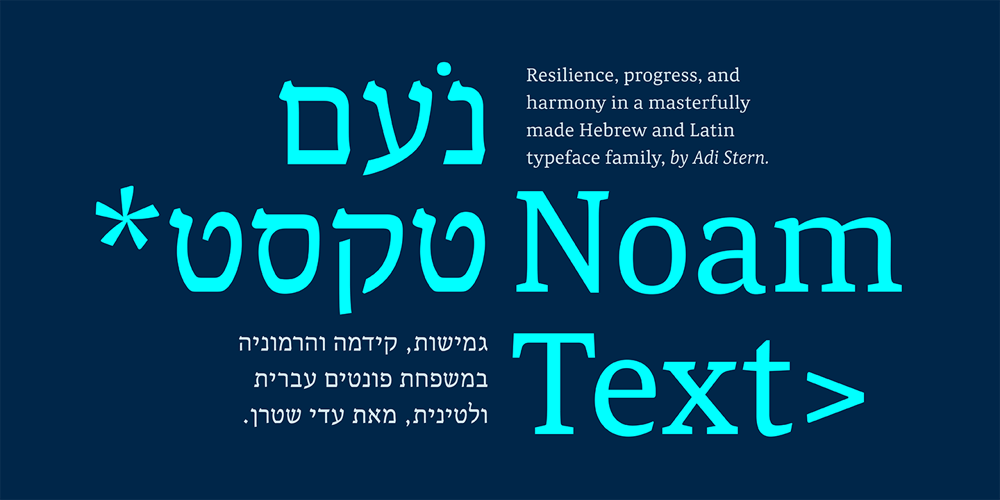
Noam Text Font Family was designed by Adi Stern and published by TypeTogether. Noam Text contains 3 styles and family package options. Adi Stern’s Noam Text shows that typographic progress is often in the small things — in the perfecting of familiar traditions and in staying loyal to the spirit of what came before. It can’t really be called progress unless it honours its history. In this way, TypeTogether is happy to introduce Noam Text: A Hebrew and Latin serif font that builds on its heritage with the twin tools of honour and progress. Since 1908, the Frank-Rühl fonts have dominated the Hebrew book and newspaper market. Noam Text’s design goal was to create a coherent family with both Latin and Hebrew serif text typefaces, each authentic to its own script, and which would serve as an alternative to last century’s predecessor. In short order, users will recognise Noam Text as a source of progress in its bilingual abilities. Hebrew and Latin have opposite reading directions, creating many issues: opposing directionality of the open counters; vertical stress in Latin, but horizontal in Hebrew; fewer extenders in Hebrew; and no Hebrew capital letters. All these have been taken into account in Noam Text’s modern design. Of unique importance — all punctuation marks have a Hebrew version, which makes each script complete and uncompromising. Among other technologically advanced details, Noam Text was programmed for all expected scenarios of mixing Hebrew, Latin, figures, and punctuation. Noam Text is intended mostly for setting long texts, so it strives to achieve maximum legibility in minimum space with its large x-height, short and fairly condensed Latin capitals, large and open counters, and low contrast. Originally derived from the Hebrew, the shallow horizontal curves and strong baseline serifs provide dynamism and enhance the reading flow. Noam Text Latin’s italic is rounded and reading friendly, is condensed to generate a lighter texture than the roman, and has a flowing stance. These virtues help it endure harsh printing conditions and subpar inks and paper. Noam Text’s three total weights provide a proper solution for integrating texts in both scripts, as well as a contemporary alternative for use in books, newspapers, and magazine design. Aligned with TypeTogether’s commitment to produce high-quality type for the global market, the complete Noam Text family displays an impressive amount of discretion, applying to wide use-cases by not edging too close to religious motifs or imbibing in secular indulgence. This means Noam Text can be the go-to family across the board and capitalise on the desire for clear typographic progress in this modern age.